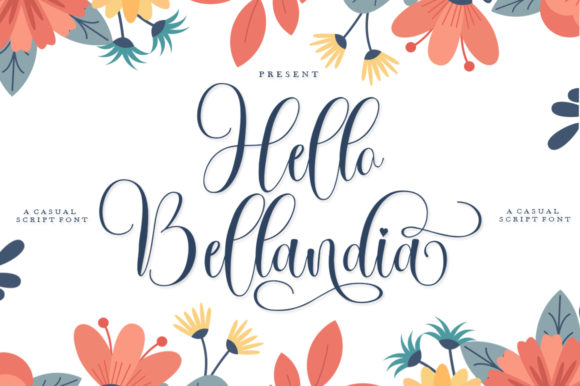
Hello Bellandia Font
Prepare yourself to be mesmerized by the Hello Bellandia Font, a breathtaking script font that exudes elegance and charm. This exquisite font, crafted by the talented IM Studio, takes inspiration from classic typography and adds a touch of contemporary flair to create a font that is both timeless and modern.
Hello Bellandia is a font that speaks to the heart, evoking a sense of nostalgia and romance with its sweeping curves and delicate details. It is a font that dances across the page, capturing attention with its playful personality and undeniable beauty.
With Hello Bellandia, your designs will blossom into masterpieces. This font is the perfect choice for creating stunning headlines that demand attention, captivating logos that leave a lasting impression, and eye-catching social media posts that will make your brand shine.
Whether you are a seasoned designer or just starting out, Hello Bellandia is the font that will elevate your work to new heights. Its versatility knows no bounds, making it suitable for a wide range of projects, from delicate wedding invitations to bold marketing campaigns.
Hello Bellandia is a font that will make your creative visions come to life. Its enchanting aura will add a touch of magic to your designs, leaving your audience spellbound and eager for more.